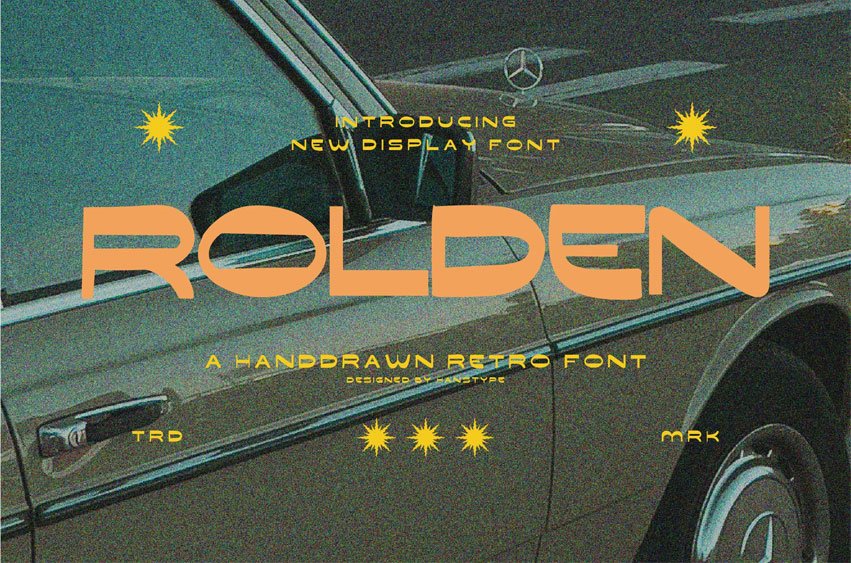
Rolden Font
Rolden Font is a stylish retro font that combines classic charm with modern flair. It features bold, rounded characters with subtle curves, giving it a vintage yet contemporary feel.
Perfect for designs that evoke nostalgia, Rolden is ideal for logos, posters, and branding projects that require a touch of retro elegance while maintaining a fresh, modern look.